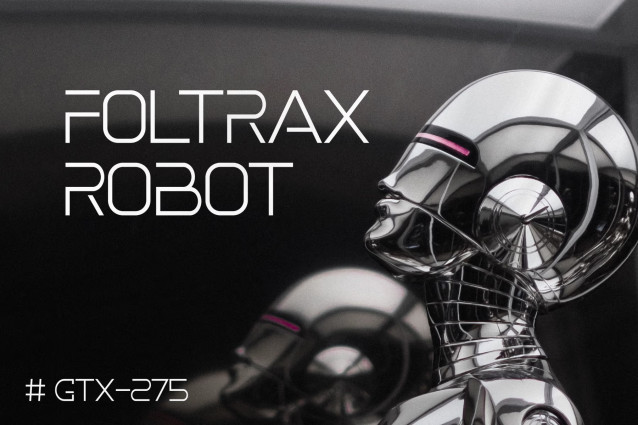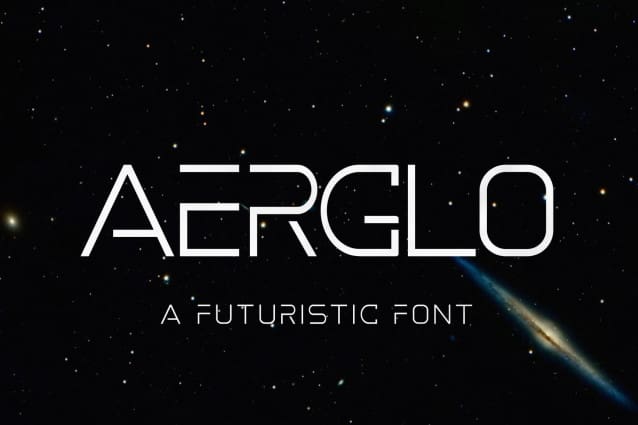
Aerglo Font
Aerglo Font, a futuristic font perfect for robotics, space, future technology and innovative products!
Aerglo A Futuristic font includes Regular and Italic styles.
Supports multilingualism (Western European Latin), with numbers and punctuation.